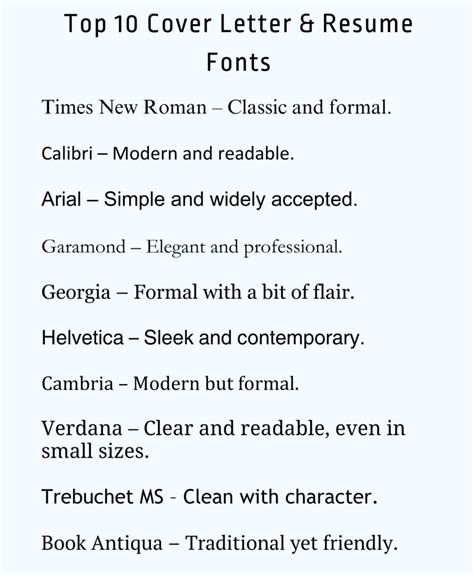
Application Letter Font. Resume builder create a resume in 5. Web as most standard writing programs already have most of the best fonts for cover letters, see how your document looks in different fonts before choosing the one you like most.
Expert tips on cover letter font size, and which are the most professional cover letter fonts. Web learn which font is the best font for a cover letter. Resume builder create a resume in 5. This means you should avoid any fonts that include stylistic flourishes or. When choosing a cover letter font,. Web as most standard writing programs already have most of the best fonts for cover letters, see how your document looks in different fonts before choosing the one you like most. Here are 10 great cover letter fonts that you can’t go wrong with: Web the 10 best cover letter fonts. Web choose a simple, modern font. The best cover letter examples include fonts that are highly readable, professional and clean.
Web choose a simple, modern font. Expert tips on cover letter font size, and which are the most professional cover letter fonts. Resume builder create a resume in 5. Web the 10 best cover letter fonts. The best cover letter examples include fonts that are highly readable, professional and clean. Web as most standard writing programs already have most of the best fonts for cover letters, see how your document looks in different fonts before choosing the one you like most. Web using one font for both your cover letter and resume creates consistency and looks more professional. This means you should avoid any fonts that include stylistic flourishes or. When choosing a cover letter font,. Web learn which font is the best font for a cover letter. Here are 10 great cover letter fonts that you can’t go wrong with: